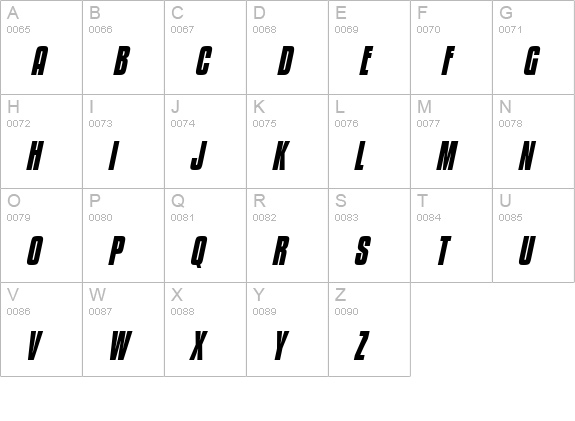
Kenyan Coffee Bold Italic Font Details
Kenyan Coffee Bold Italic is a strong, high-contrast, italic variant in the Kenyan typeface family \xE2\x80\x94 well suited to headlines, attention-grabbing titles, and strong calls-to-action.
Introducing the captivating and irresistible Kenyan Coffee Bold Italic font. This extraordinary typeface exudes a unique blend of elegance and boldness, making it the perfect choice for those seeking to make a lasting impression. With its distinctive curves and slanted angles, Kenyan Coffee Bold Italic effortlessly captures attention and adds a touch of sophistication to any project. Designed with meticulous attention to detail, this font showcases the richness and complexity of Kenyan coffee, inspired by the vibrant landscapes and rich cultural heritage of Kenya. Its bold and italicized characters intertwine harmoniously, creating a visually striking display that demands attention. Whether you're designing a logo, creating eye-catching headlines, or crafting stunning invitations, Kenyan Coffee Bold Italic offers the versatility and flexibility needed to bring your creative vision to life. Its smooth lines and balanced letterforms ensure legibility and readability across various mediums and sizes, while its boldness adds a touch of drama and excitement. But the best part? Kenyan Coffee Bold Italic is freely available to download at FontsMarket.com. Say goodbye to limitations and embrace the freedom to create stunning designs without breaking the bank. With just a few clicks, you can unlock the full potential of this remarkable font and elevate your projects to new heights. So why wait? Indulge in the beauty of Kenyan Coffee Bold Italic and let your imagination run wild. Download it today at FontsMarket.com and experience the freedom to create with style and grace.